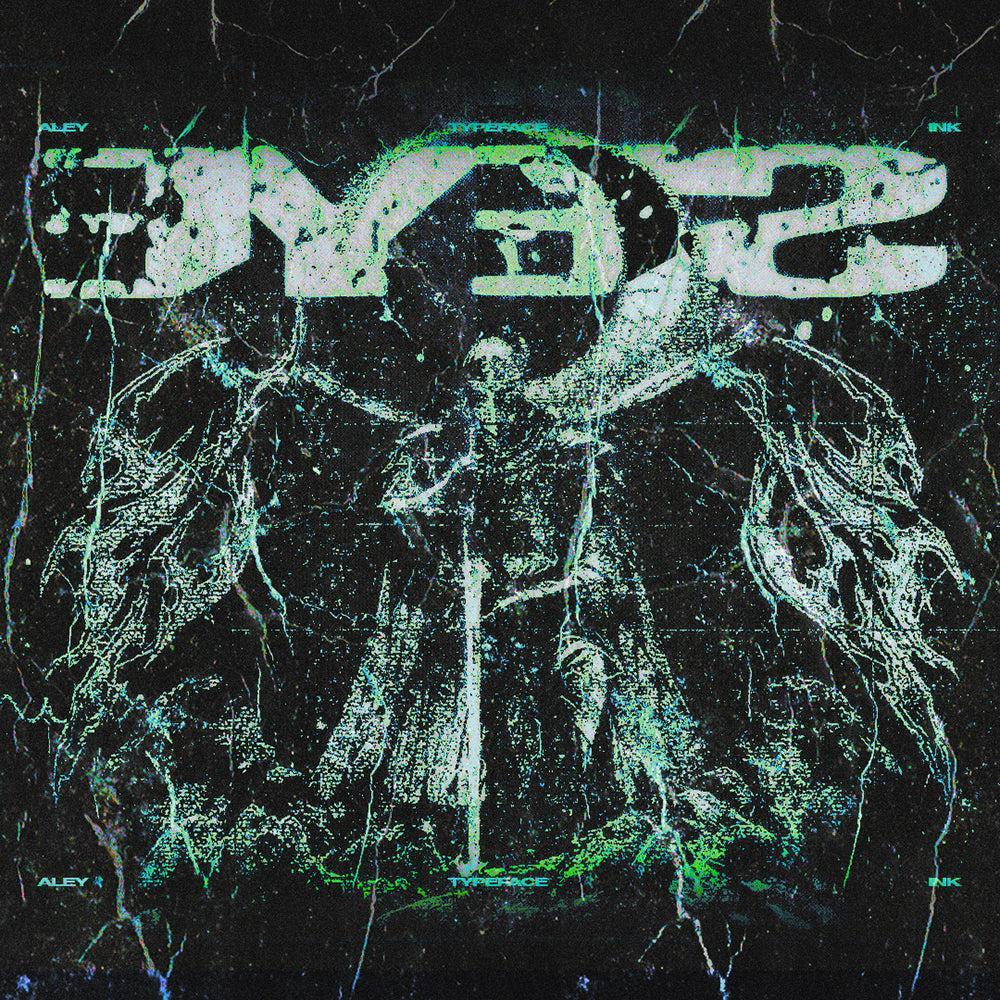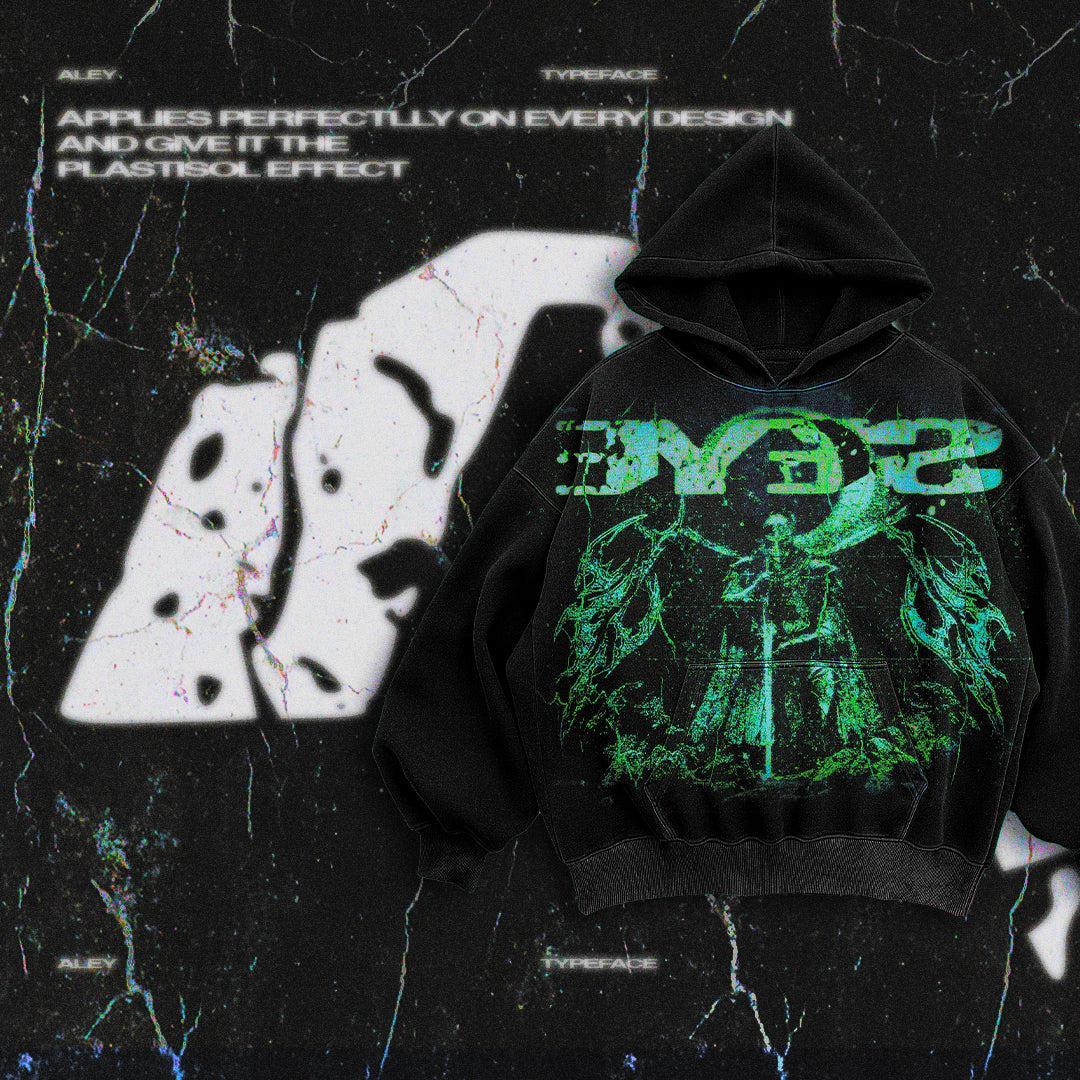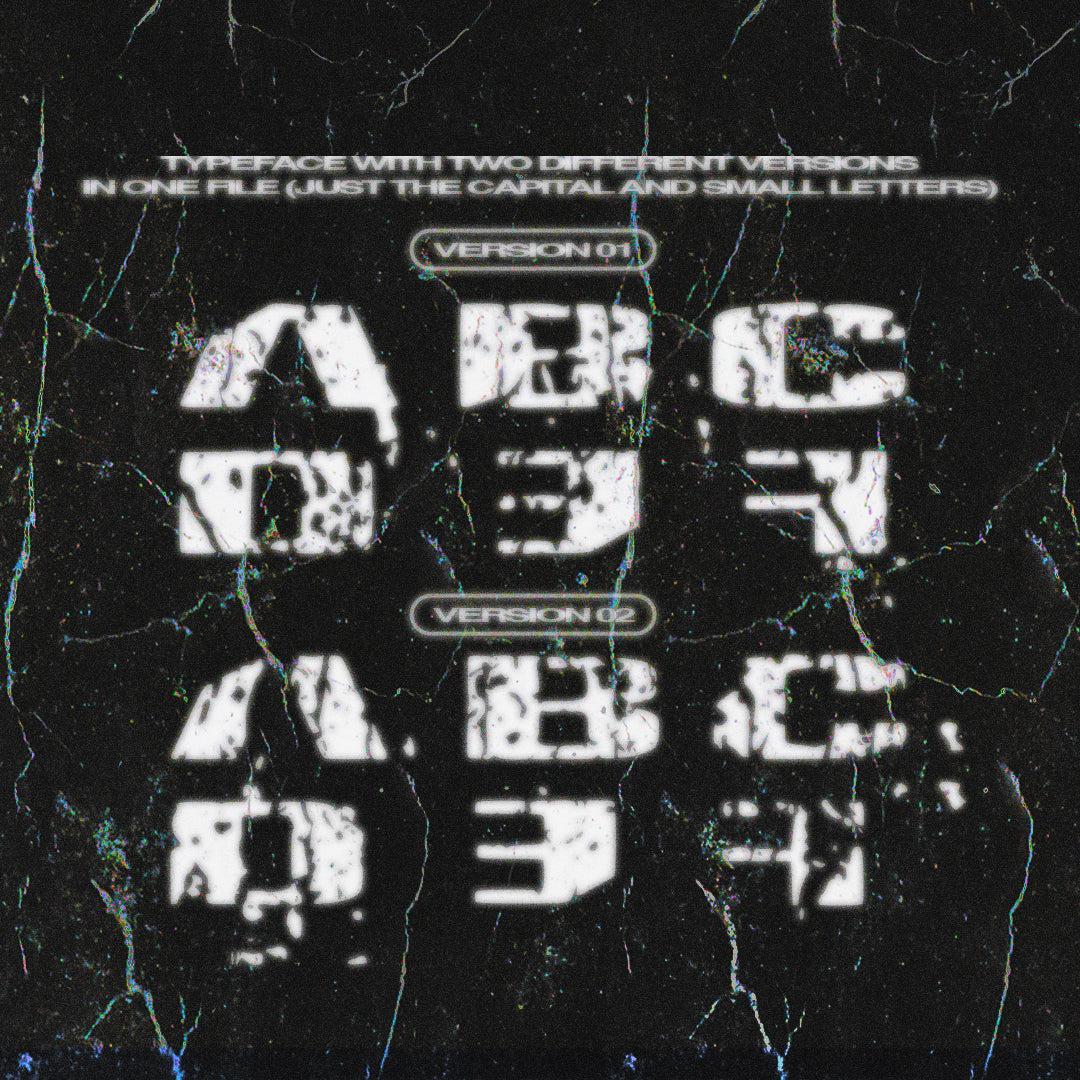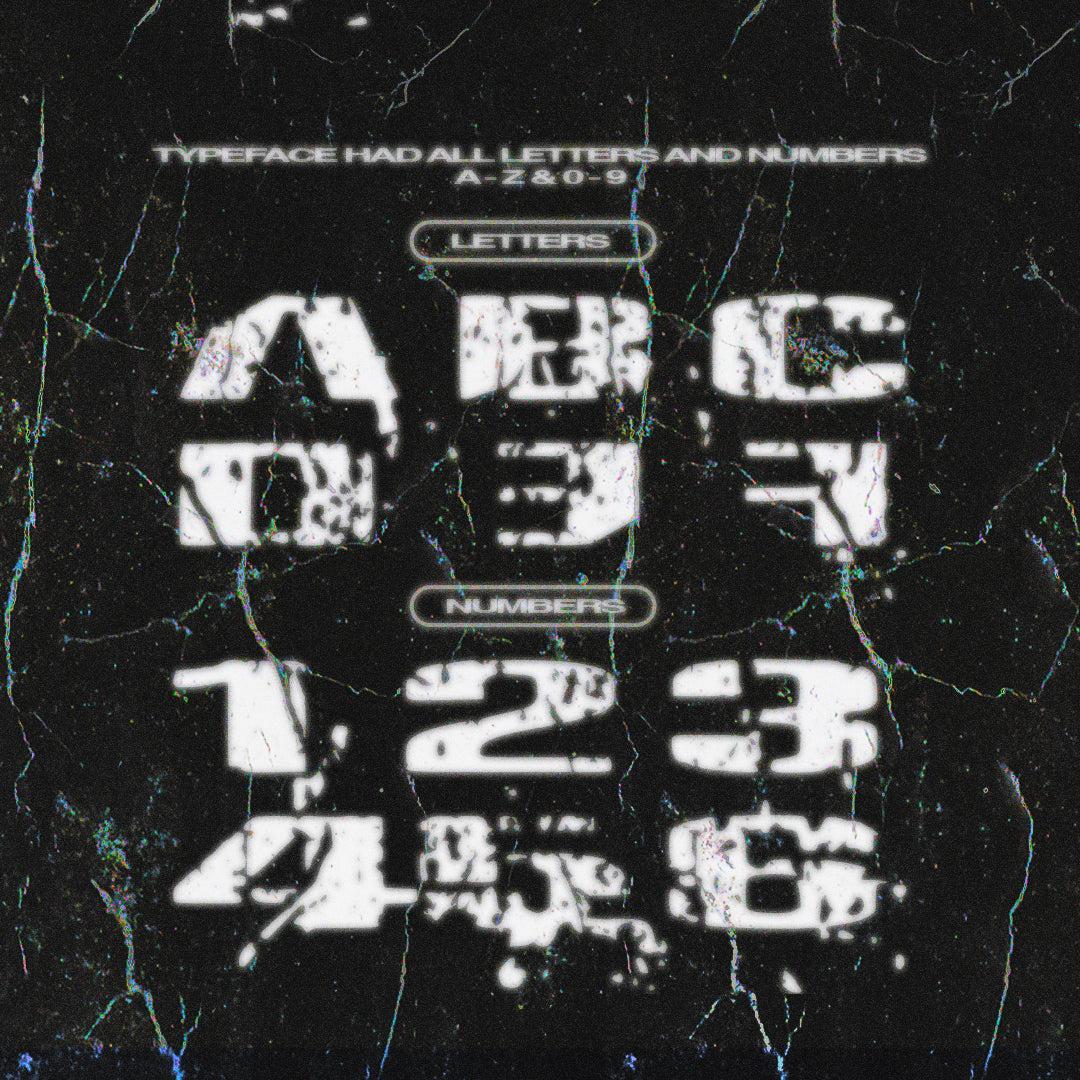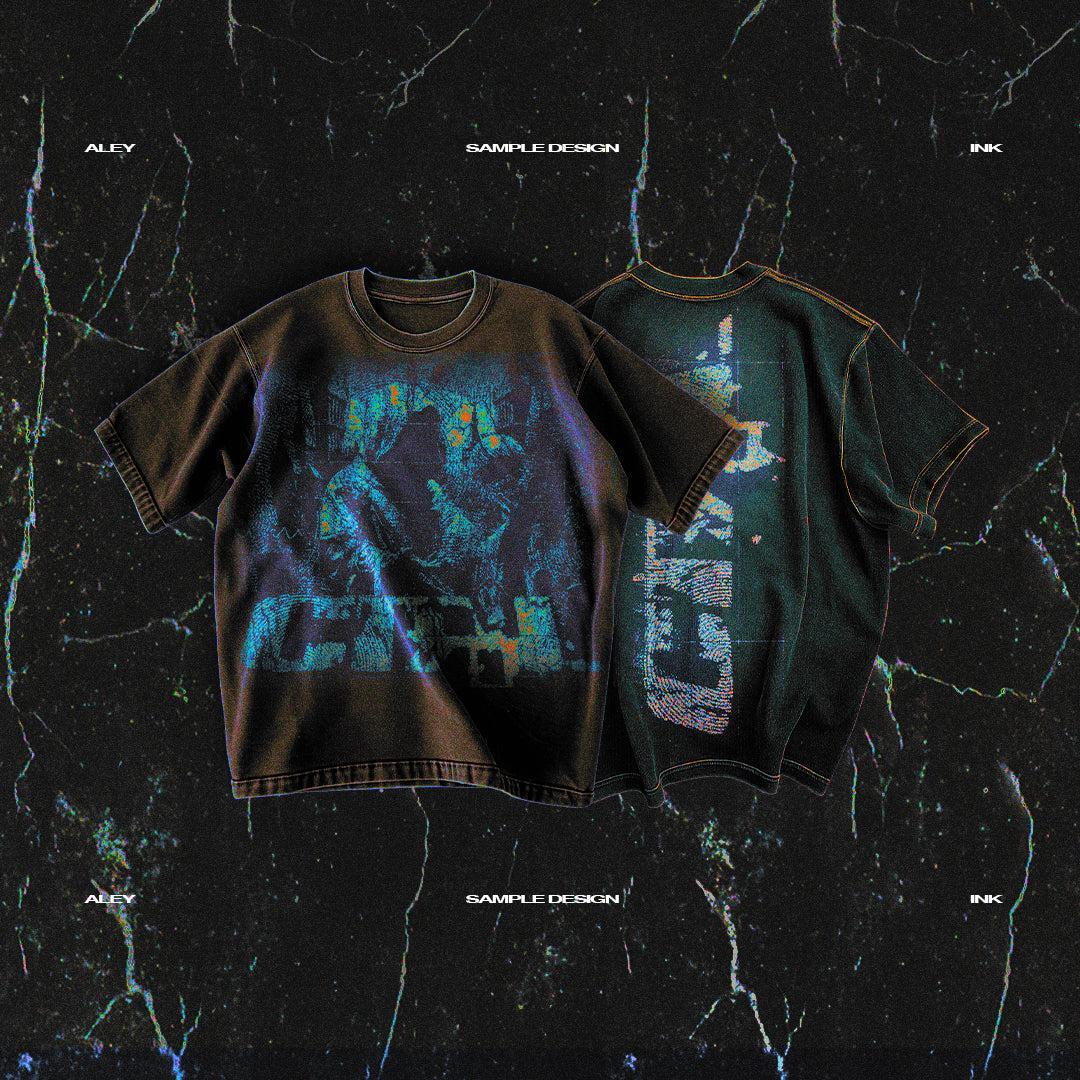
Aley - Plastisol Typeface
The Aley - Plastisol Typeface features a realistic plastisol effect and includes two versions of the typeface in one file, with all letters and numbers (A-Z & 0-9). It is available in TTF and OTF formats, licensed for personal and commercial use, with no limitations on the full license or installation numbers.
Ideal for grunge-inspired graphic design and vintage branding. Perfect for posters, album covers, and merchandise, ensuring a realistic plastisol effect that enhances the overall aesthetic of creative projects.